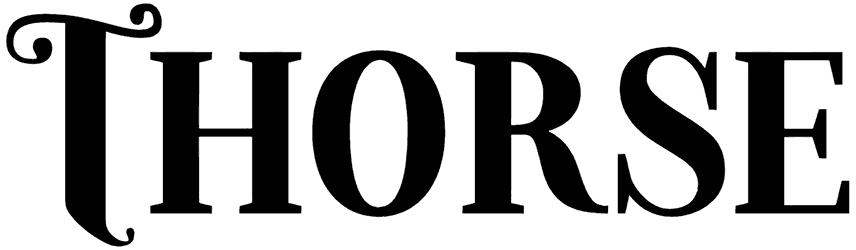
Thorse Font
For those who like classic fonts with a lot of sparkles on the edges, Thorse will be one of the great gifts. This retro font offers you two suggestions in capital letters, one of which reminds you of the letters of a serif font.
Therefore, combining these two options allows you to create lasting and historical designs without having small letters in hand, which will be very attractive to old art lovers in a luxurious circus, conference halls, websites, and books.